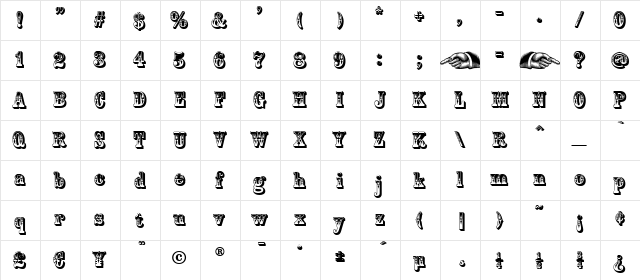
Country Western Regular
Design Context for Country Western Typeface
Country Western echoes the hand-painted signage and woodblock typography of the American frontier, with a warm, rugged personality.
Perfect for barbecue restaurants, country music branding, vintage poster design, and rustic packaging.
Font Pairing: Combine Country Western with a simple slab or neutral sans — period-accurate companions reinforce the vintage feel without competing for attention.
Pro Tip: Pair Country Western with aged textures or distressed backgrounds to amplify its vintage personality.